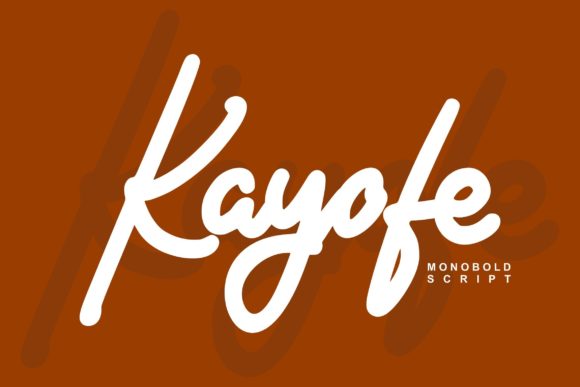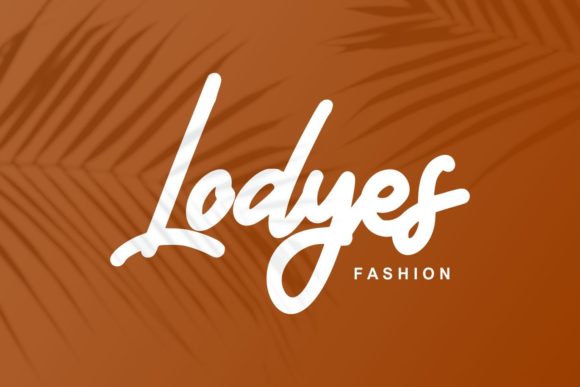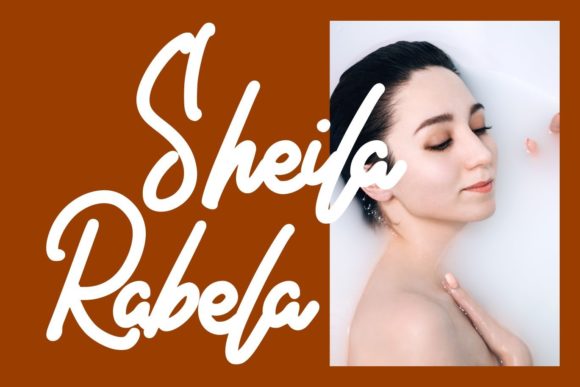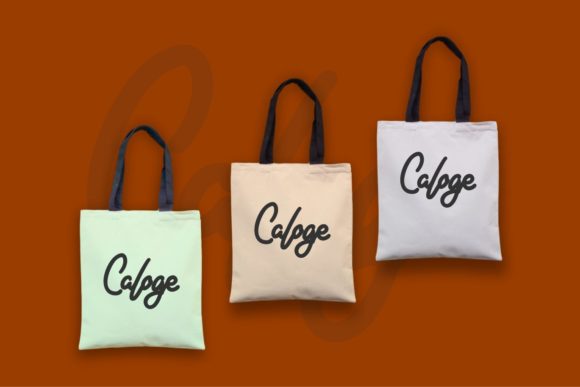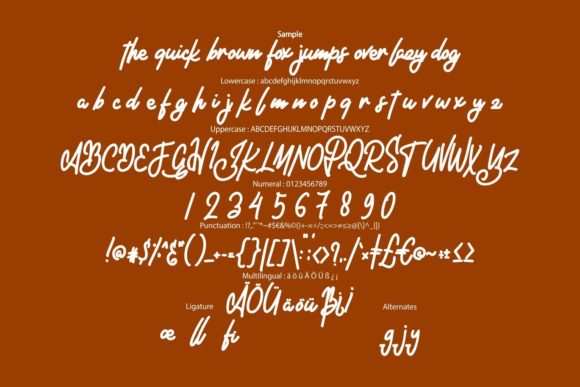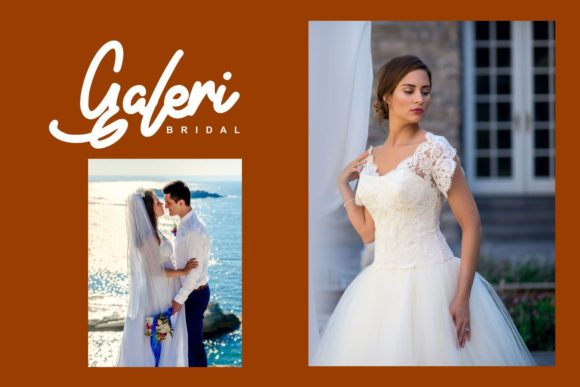
Kayofe Font
About Kayofe Font
Kayofe is a lovely and timeless handwritten font. It is the best choice for creating eye catching logos, branding and quotes. Every letter has a unique and beautiful touch, which will make your design come alive!